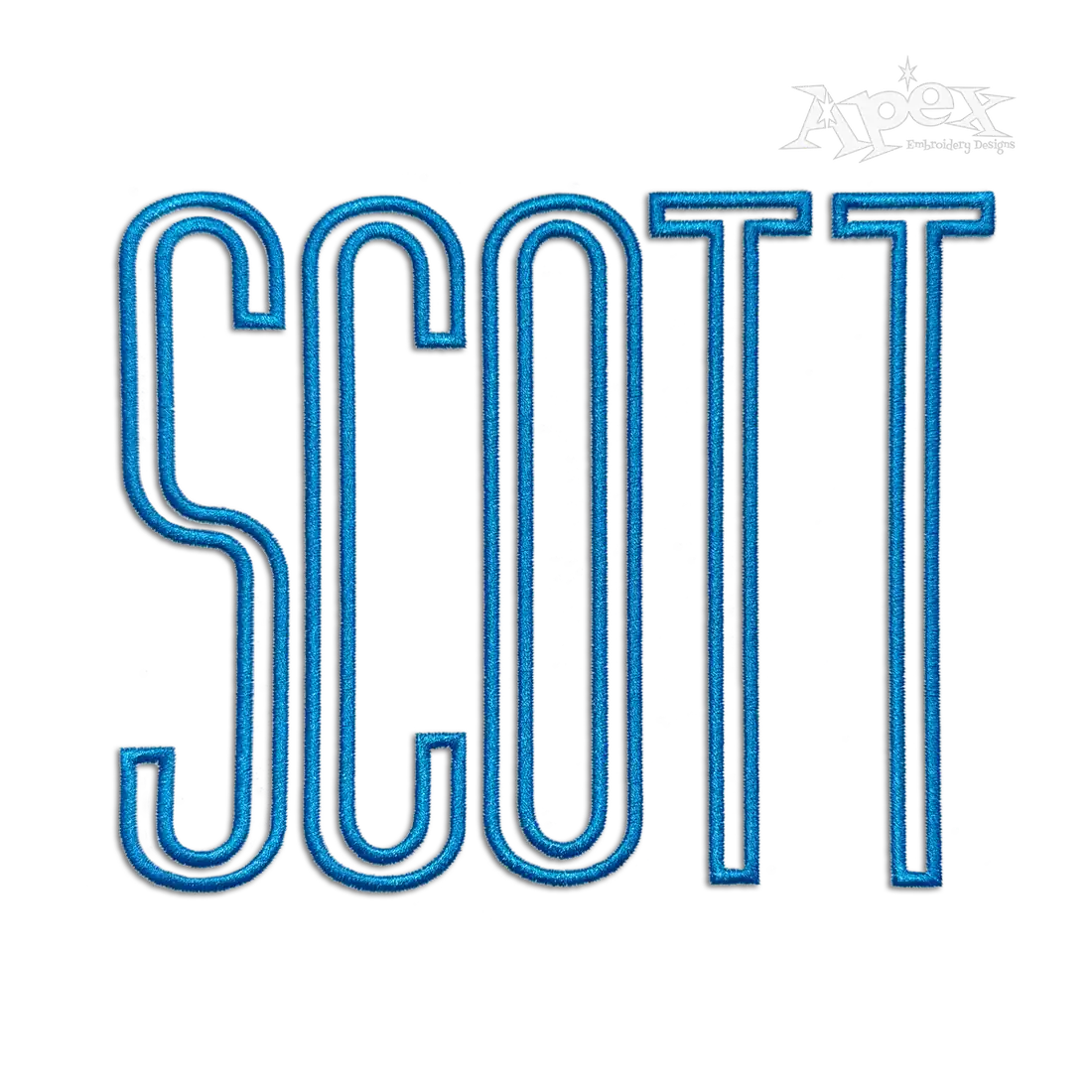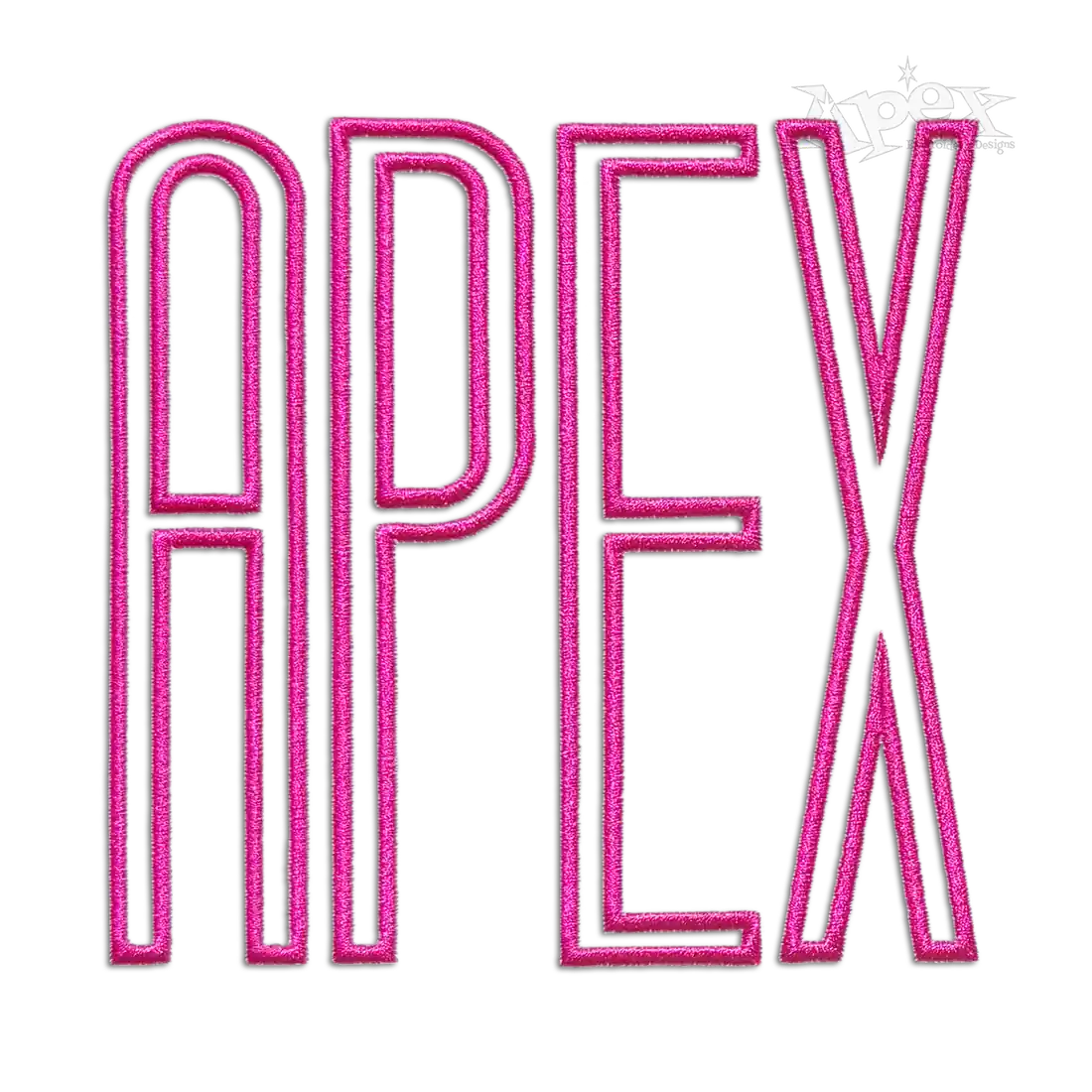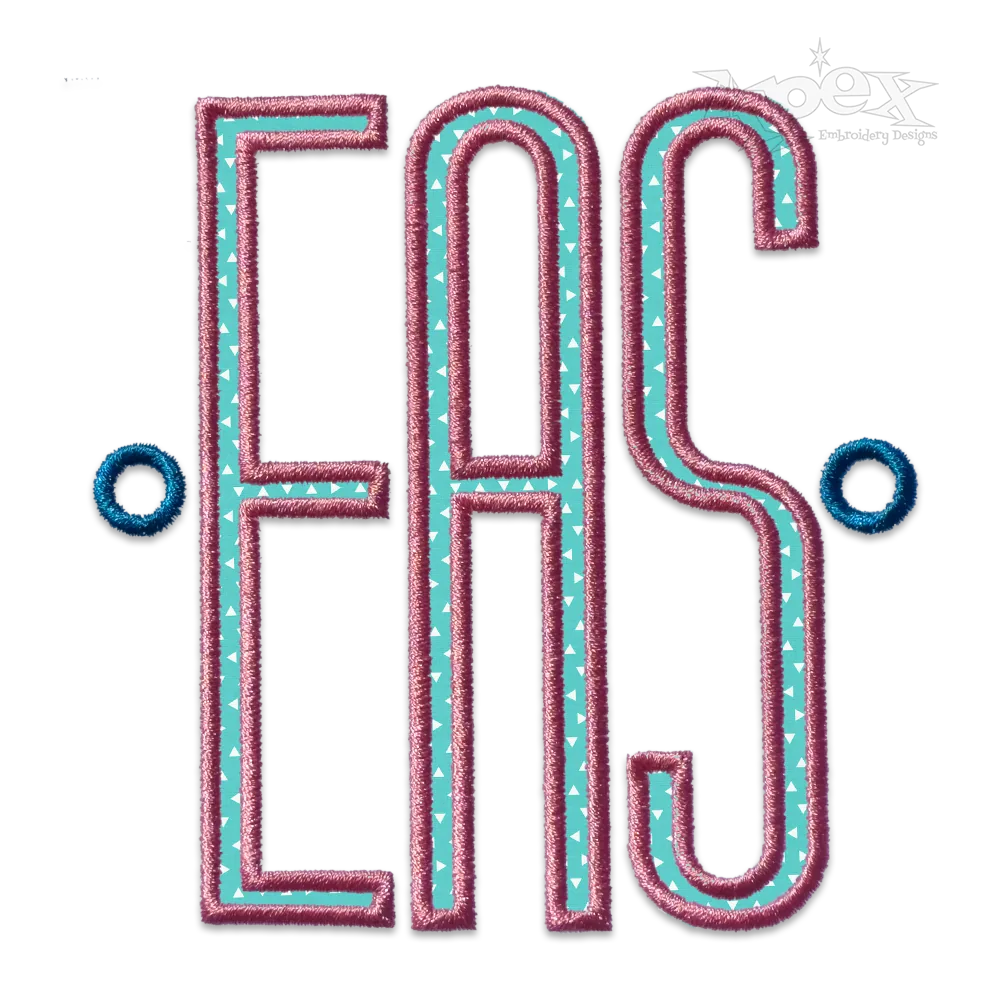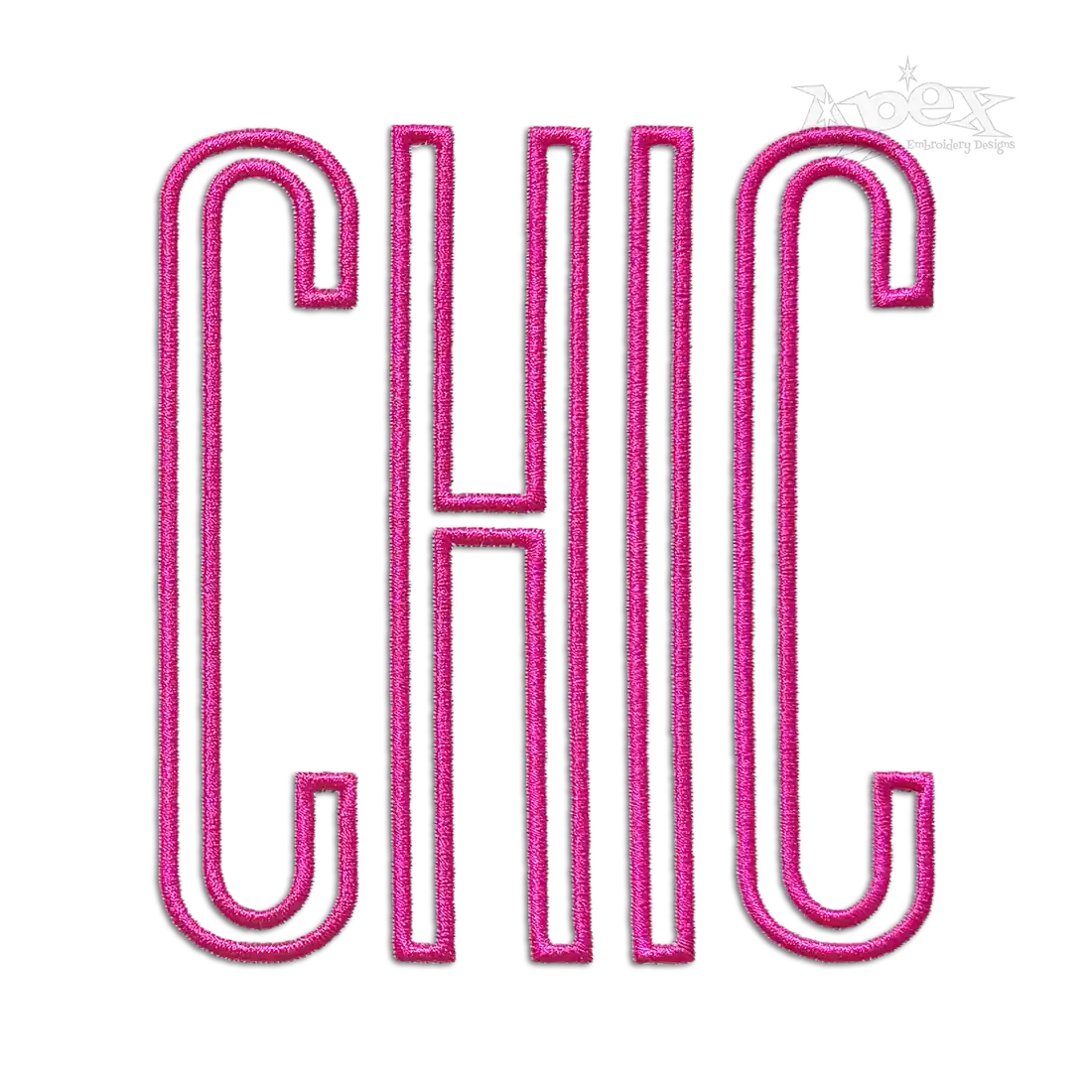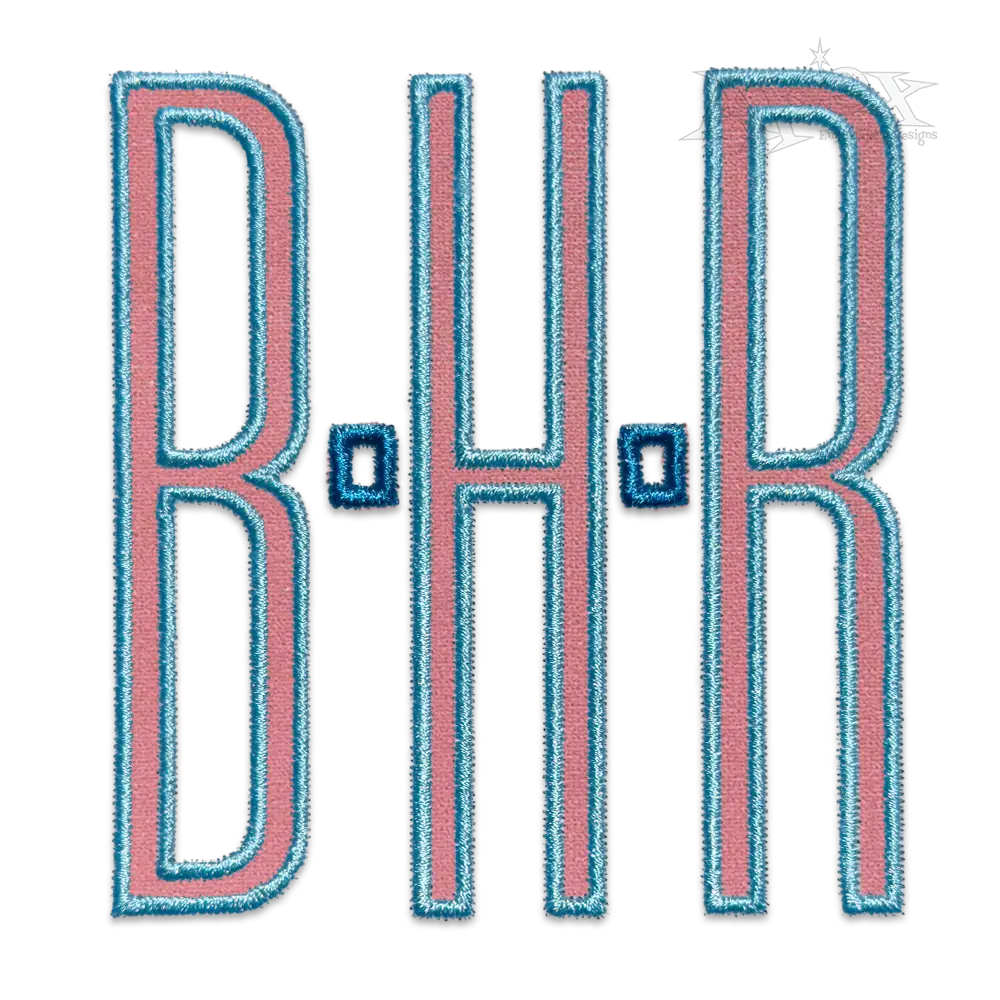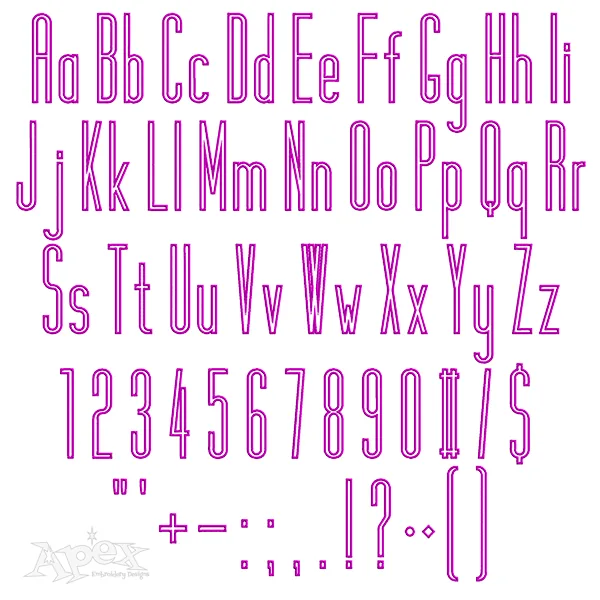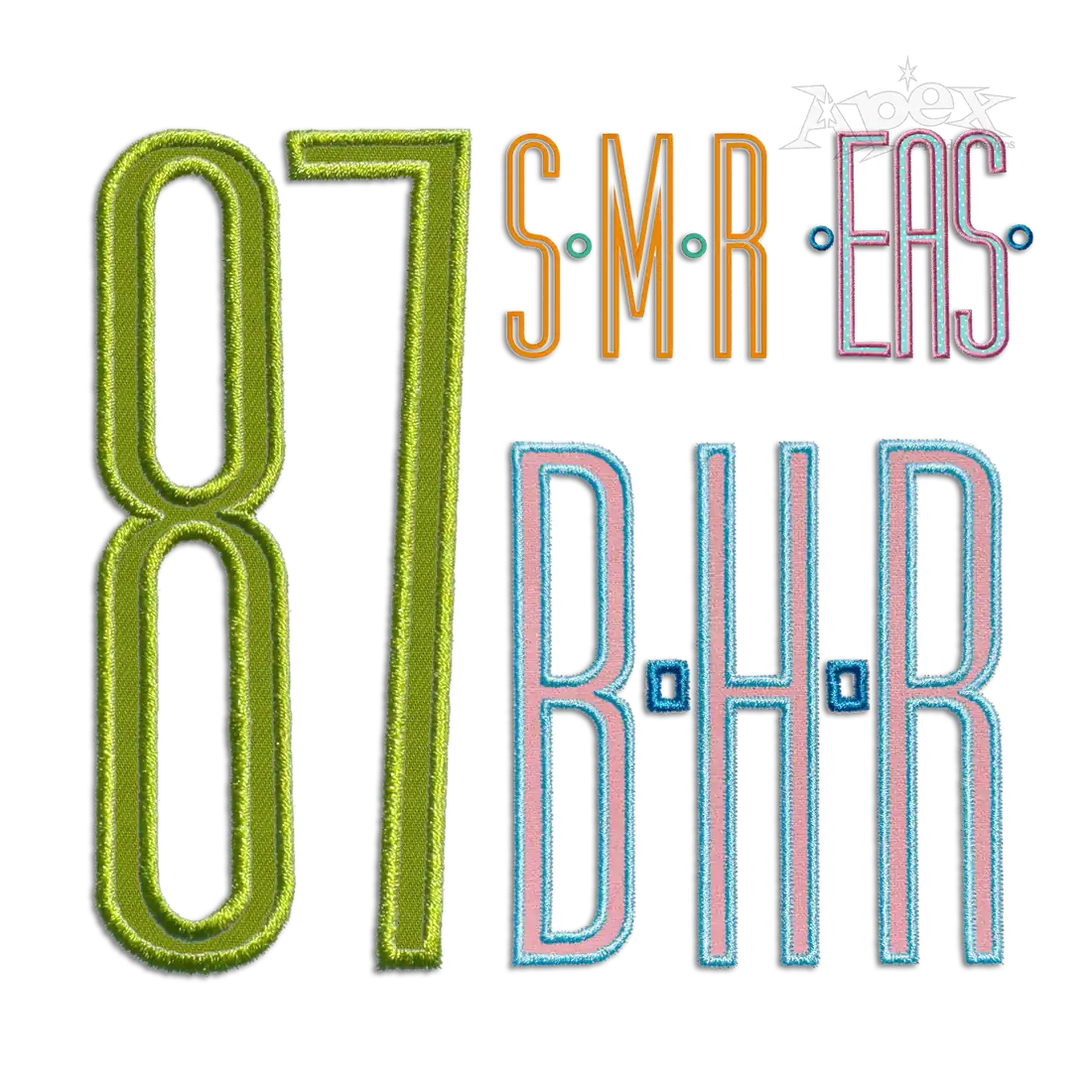
Tall Applique Embroidery Font
Towering letterforms redefine space through slender geometry and dramatic vertical reach. Digitized specifically for impactful scale without excessive stitch density, this tall skinny applique alphabet balances open fabric centers with sleek satin boundaries. Every glyph commands attention on large-scale canvases, capturing refined modern typography while keeping stitchouts swift, supple, and lightweight.
Project Ideas for Tall Applique
Expansive scale fits bold custom monogramming and modern statement pieces:
- Bespoke resort wear: Stitch oversized initials down front placket of linen beach coverups or cabana shirts.
- Personalized gifting: Personalize heavy cotton canvas totes with contrasting patterned fabric cores.
- Luxury table linens: Apply narrow center-table monograms on oversized linen runners for contemporary dining aesthetics.
- Athletic apparel: Apply tall digits and team acronyms across fleece crewnecks, stadium blankets, and varsity warmups.
- Heirloom holiday loungewear: Frame whimsical holiday prints within tall family initials on flannel pajama sets.
Narrow footprint unlocks versatile positioning across varied garment layouts:
- Vertical sleeve run: Align lettering vertically along outer jacket sleeve or forearm.
- Center chest: Arrange three-letter monograms across sweatshirt chest using spacer dots.
- Side seam vertical: Stack names or graduation years running upward along side seams of hoodies.
- Bag body: Center single oversized initial on structured tote bags and duffels.
Tall Applique Craft & Letterform Details
Architecture meets textile craft in clean, ultra-narrow strokes. Standard dense embroidery at eight inches creates stiff, heavy garments. Solution: applique foundation framed by narrow, calibrated satin stitch columns. Underlay paths secure base textile firmly; top satin beads glide along sharp vertical paths and rounded terminals with continuous tension control. Matching punctuation sets include square and circular spacer dots for balanced spacing across multi-letter monograms. Precision digitized corners eliminate thread bunching while preserving sharp geometric clarity.